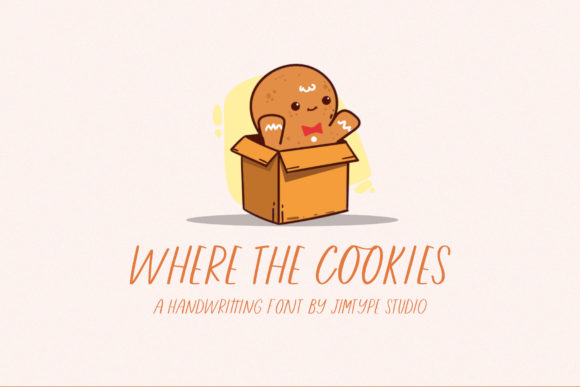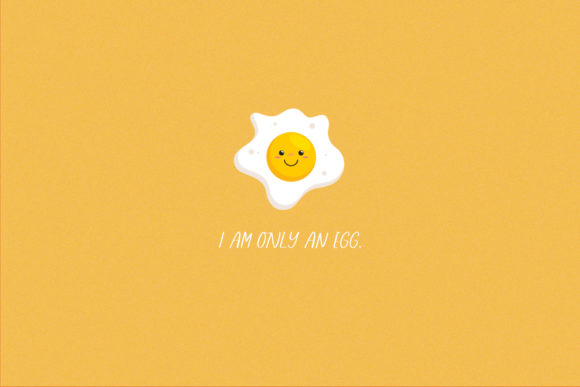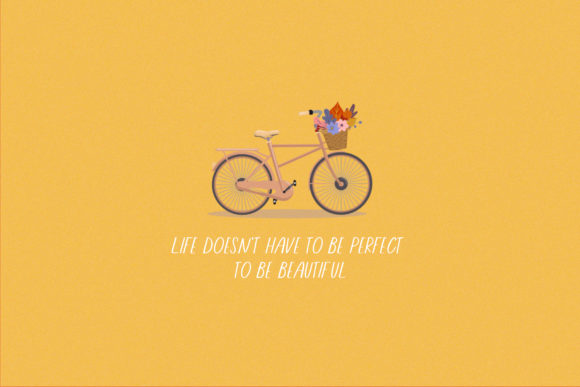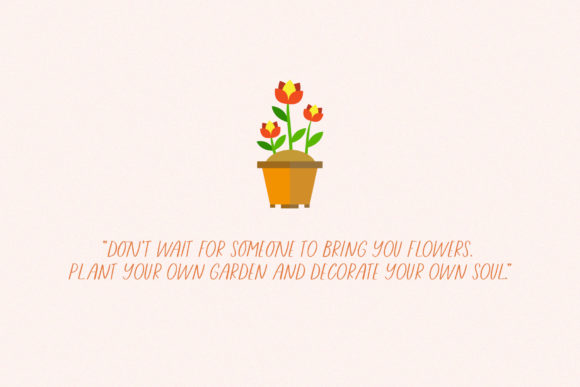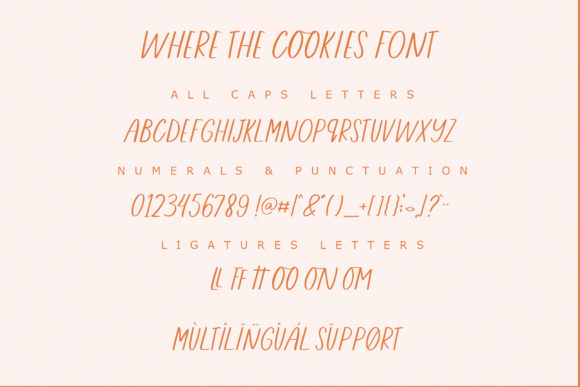
About Where the Cookies Font
Where The Cookies is an all caps, handwritten font that offers a wonderful and personal touch for greeting cards, invites, quotes, merchandise and so much more.